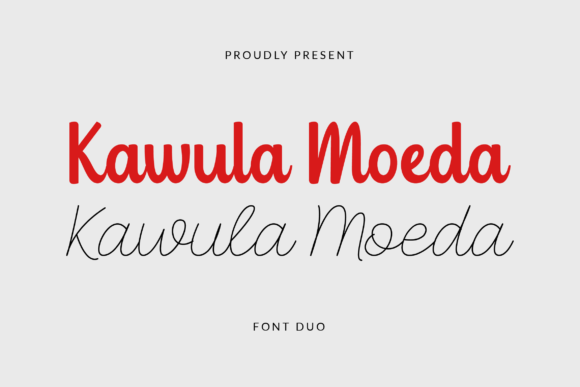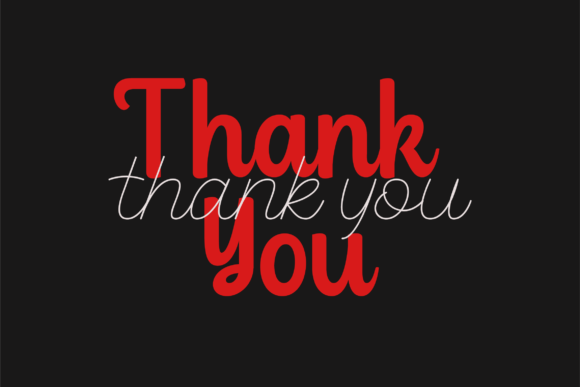
About Kawula Moeda Font
Kawula Moeda is a graceful and charming script font that adds a touch of elegance and sophistication to your designs. With its beautiful and well-balanced characters, this font is versatile and suitable for a wide range of design projects.
The flowing and graceful nature of Kawula Moeda’s letterforms creates a sense of fluidity and movement. Each character has been carefully crafted with attention to detail, resulting in a harmonious and visually appealing typeface. Whether you’re designing invitations, logos, packaging, or any other creative project, Kawula Moeda brings a touch of refinement and charm.
One of the strengths of Kawula Moeda is its versatility. The font matches a wide pool of designs, making it suitable for various purposes. From elegant wedding invitations to luxurious branding projects, Kawula Moeda adds a touch of sophistication and style. Its graceful curves and balanced proportions create a visual balance that is pleasing to the eye.
The charm of Kawula Moeda extends to digital designs as well. Whether you’re creating social media graphics, website headers, or blog post titles, this font adds an elegant and polished look to your digital content. Its versatility allows it to seamlessly blend with different design styles and aesthetics.
The beauty of Kawula Moeda lies in its ability to elevate your designs and make them more visually appealing. Its graceful and charming nature captures attention and creates a lasting impression. Whether you’re working on personal projects or professional designs, Kawula Moeda enhances the overall aesthetic and adds a touch of sophistication.
In conclusion, Kawula Moeda is a graceful and charming script font that matches a wide pool of designs. With its beautiful and well-balanced characters, it brings elegance and sophistication to your creative projects. Whether you’re designing wedding invitations, logos, packaging, or digital graphics, Kawula Moeda adds a touch of refinement and charm that enhances the overall visual appeal of your designs.